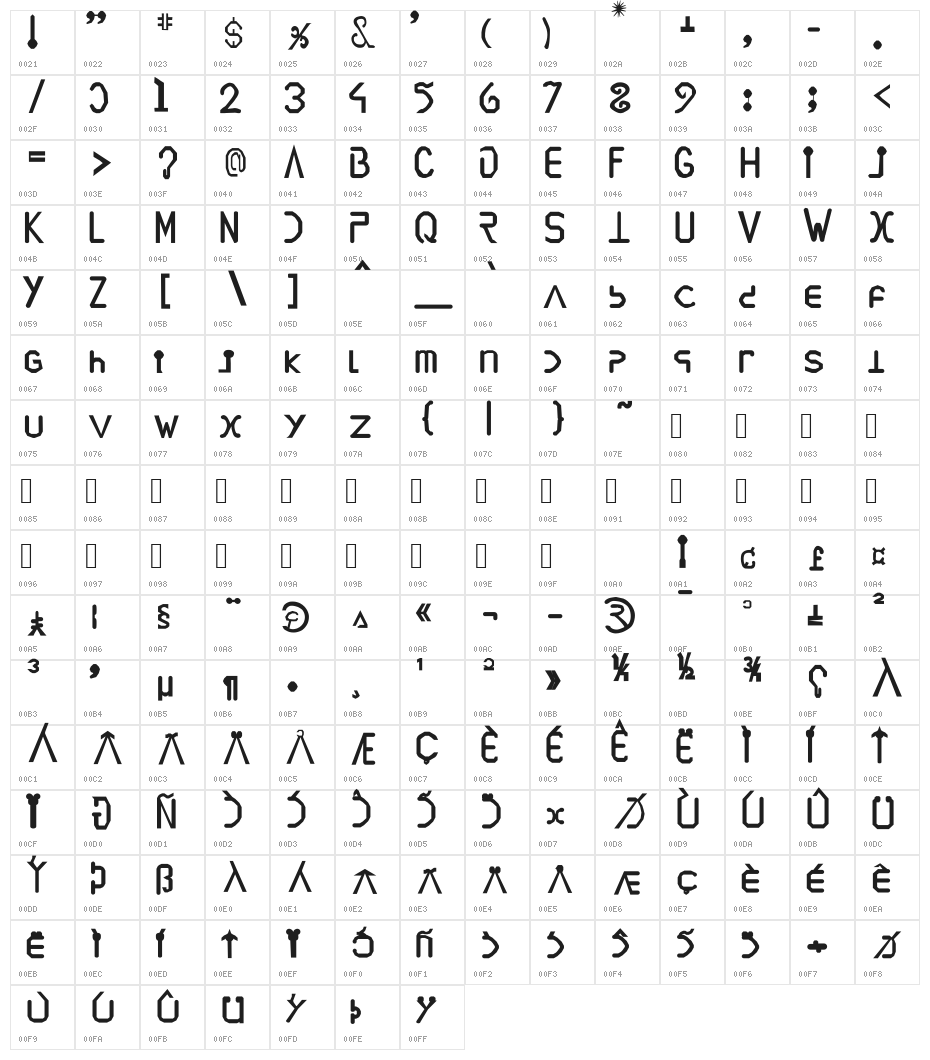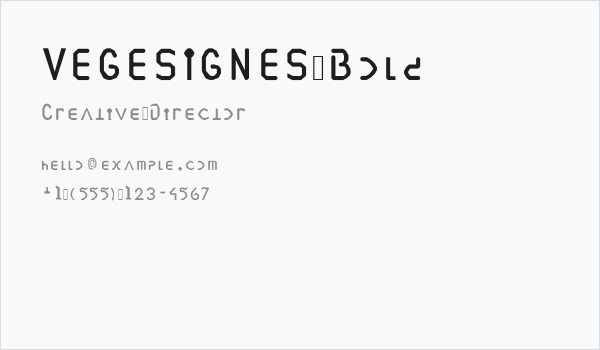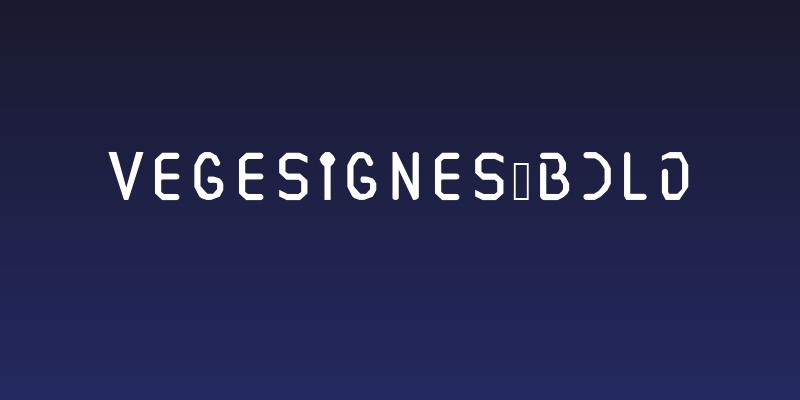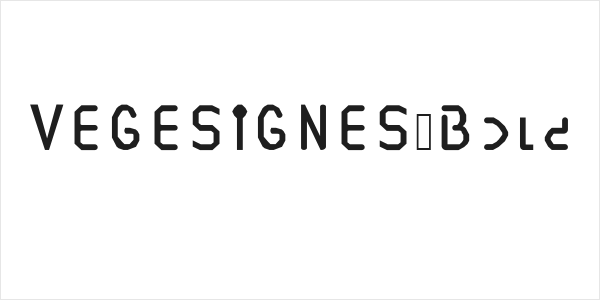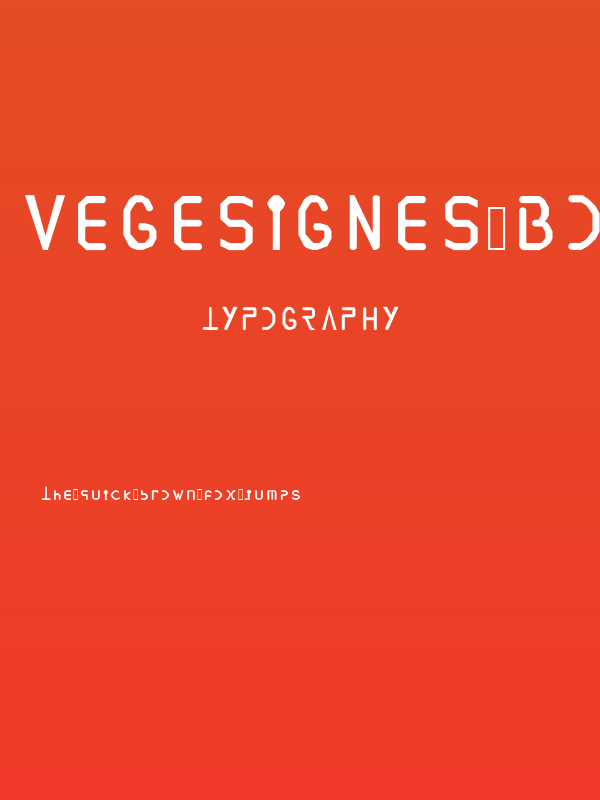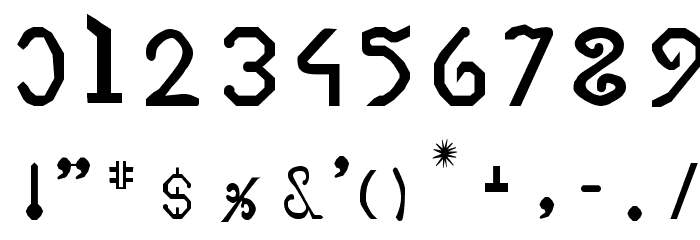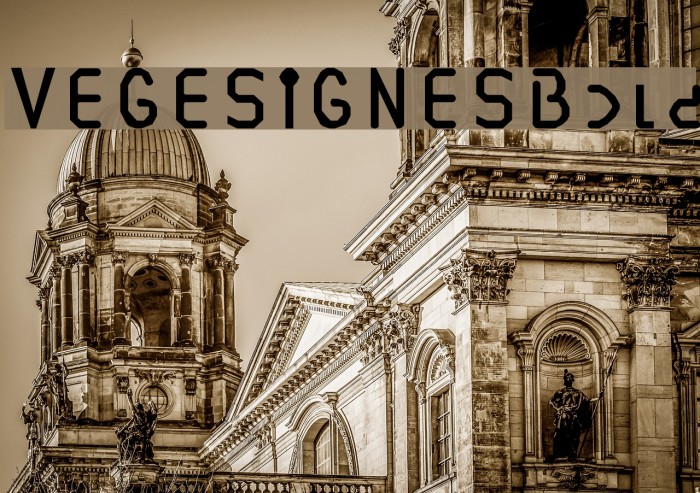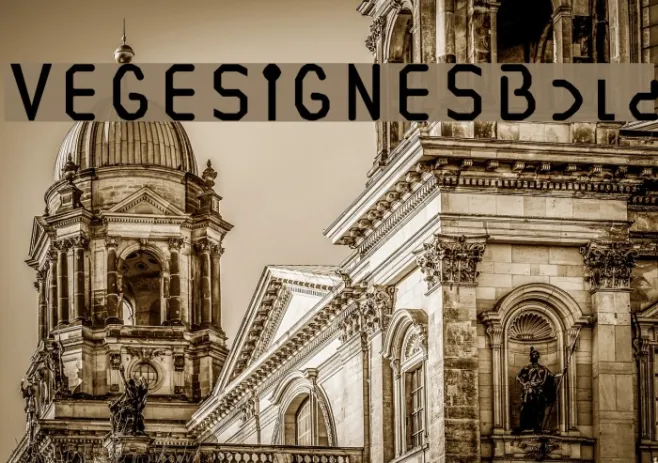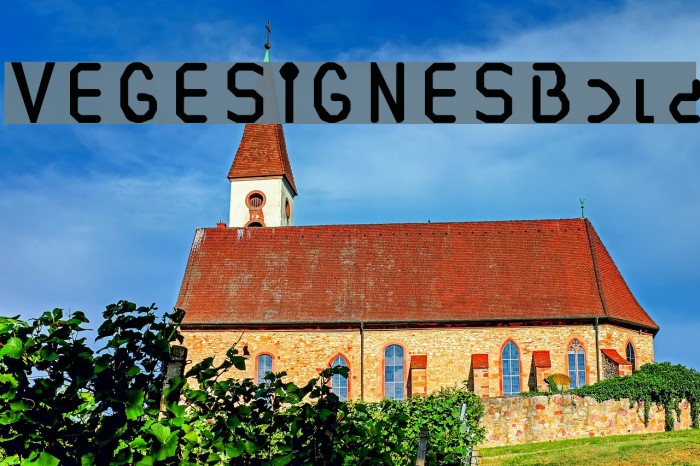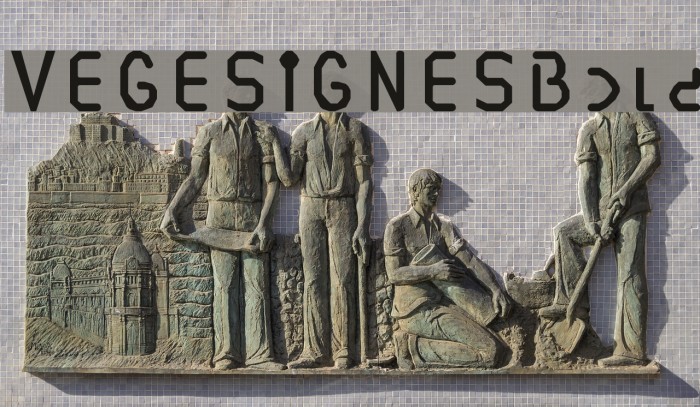
VEGESIGNES Bold Font
VEGESIGNES Bold Description
This font features a bold and geometric style with a unique, futuristic aesthetic. The characters are constructed with a combination of straight lines and sharp angles, giving them a distinct, modern look. The uppercase letters are particularly striking, with some characters incorporating unexpected cuts and shapes that add to the font's dynamic appearance. The lowercase letters maintain this geometric theme, ensuring consistency across the typeface. Numbers are equally bold and feature similar angular designs, making them stand out. Special characters are creatively designed, maintaining the overall theme while offering clear readability. This font is ideal for projects that require a strong, contemporary visual impact.
| Proposed Projects | Ideal for branding, posters, sci-fi themed projects, and digital media that require a modern and bold statement. |